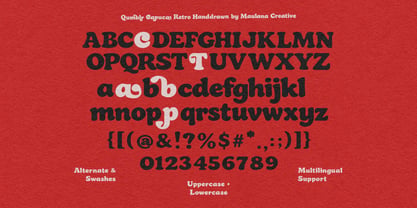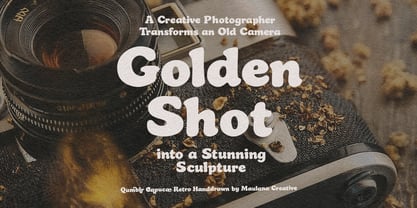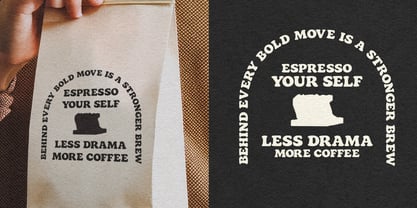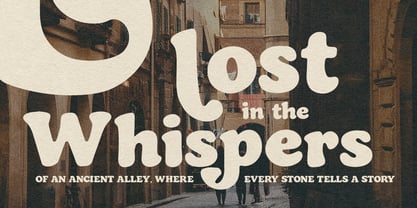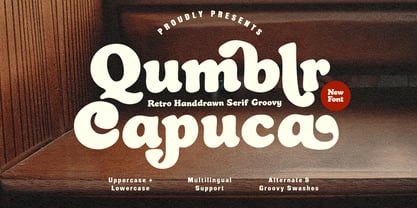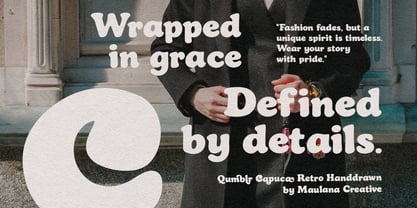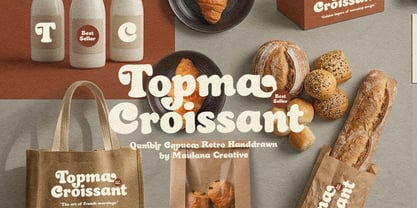
MC Qumblr Capuca
by Maulana Creative
The MC Qumblr Capuca Font Family was designed by Gilang Maulana and published by Maulana Creative. MC Qumblr Capuca contains 1 styles. More about this family
Step back into the vibrant aesthetics of the 70s with Qumblr Capuca, a hand-drawn serif font that perfectly captures the essence of retro-cool. Defined by its bold, curvaceous letterforms and playful “groovy” swashes, this typeface brings a touch of nostalgic charm and organic warmth to any design. Whether you are crafting a vintage-inspired brand identity, eye-catching editorial headlines, or stylish lifestyle packaging, Qumblr Capuca offers a unique balance of personality and professional craftsmanship. It features a full set of uppercase and lowercase characters, multilingual support, and a variety of alternate glyphs that allow you to customize your typography with flowing, artistic flourishes.
Designers: Gilang Maulana
Foundry: Maulana Creative